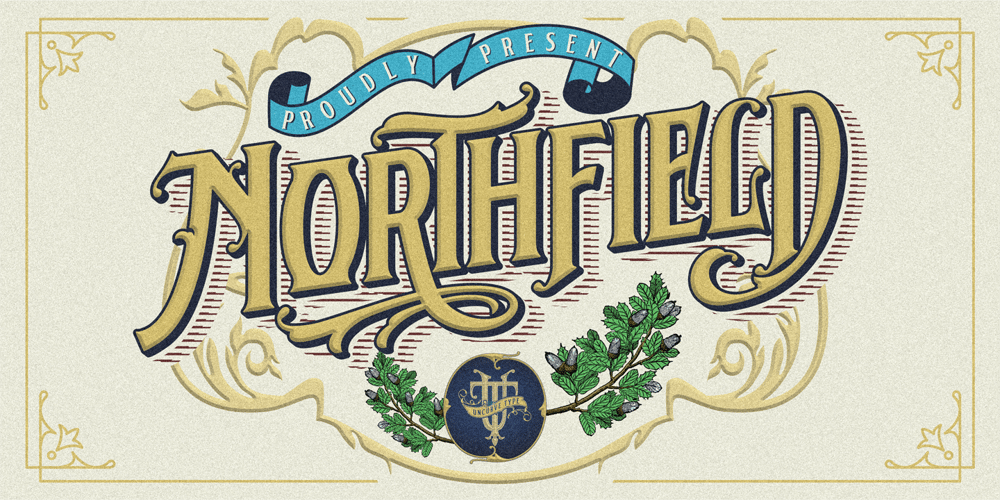
Northfield Font Family was designed by Ferry Septian and published by Uncurve. Northfield contains 1 styles and family package options. Northfield is a combination vintage and modern typography font, inspired from the elegant poster and old label product. Northfield comes with ton of alternates characters.It is suitable for authentic logos, headings, posters, branding, magazines, album covers, book covers, movies, apparel design, flyers, greeting cards, product packaging, and more.